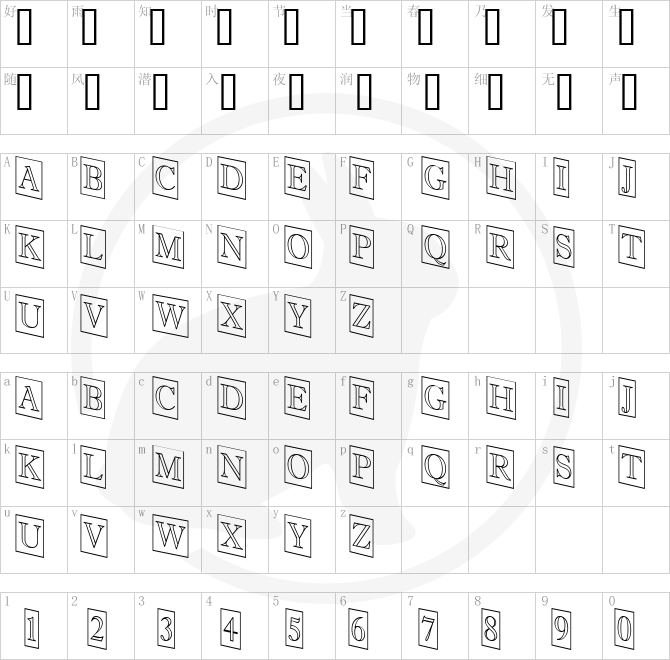
- Font Name:a_AntiqueTitulTrCmDnOtl
- Full Name:a_AntiqueTitulTrCmDnOtl
a_AntiqueTitulTrCmDnOtl.ttf is a very beautiful artistic font, a_AntiqueTitulTrCmDnOtl.ttf is widely used in the design and printing of various books and pictures,a_AntiqueTitulTrCmDnOtl.ttf has a strong visual impact,a_AntiqueTitulTrCmDnOtl.ttf is a commonly used font in newspapers, magazines and books, and is used in posters, e-commerce Poster design, store design, logo design, font design and other fields.a_AntiqueTitulTrCmDnOtl.